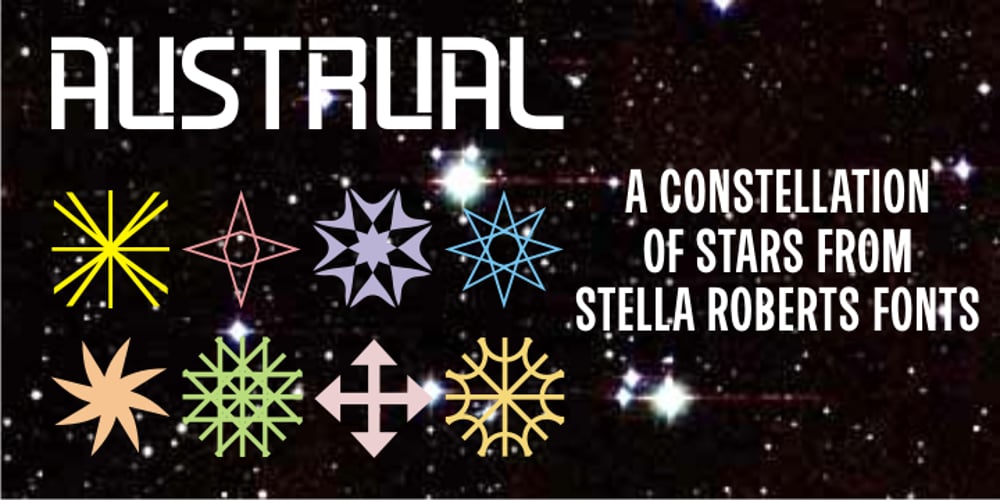
Austrual SRF Font Family was designed by published by Stella Roberts Fonts. Austrual SRF contains 1 styles and family package options. Austrual SRF is a collection of star dingbats created by Jeff Levine for Stella Roberts Fonts. There are over sixty images for adding the perfect intergalactic embellishment to any project. The net profits from my font sales help defer medical expenses for my siblings, who both suffer with Cystic Fibrosis and diabetes. Thank you.